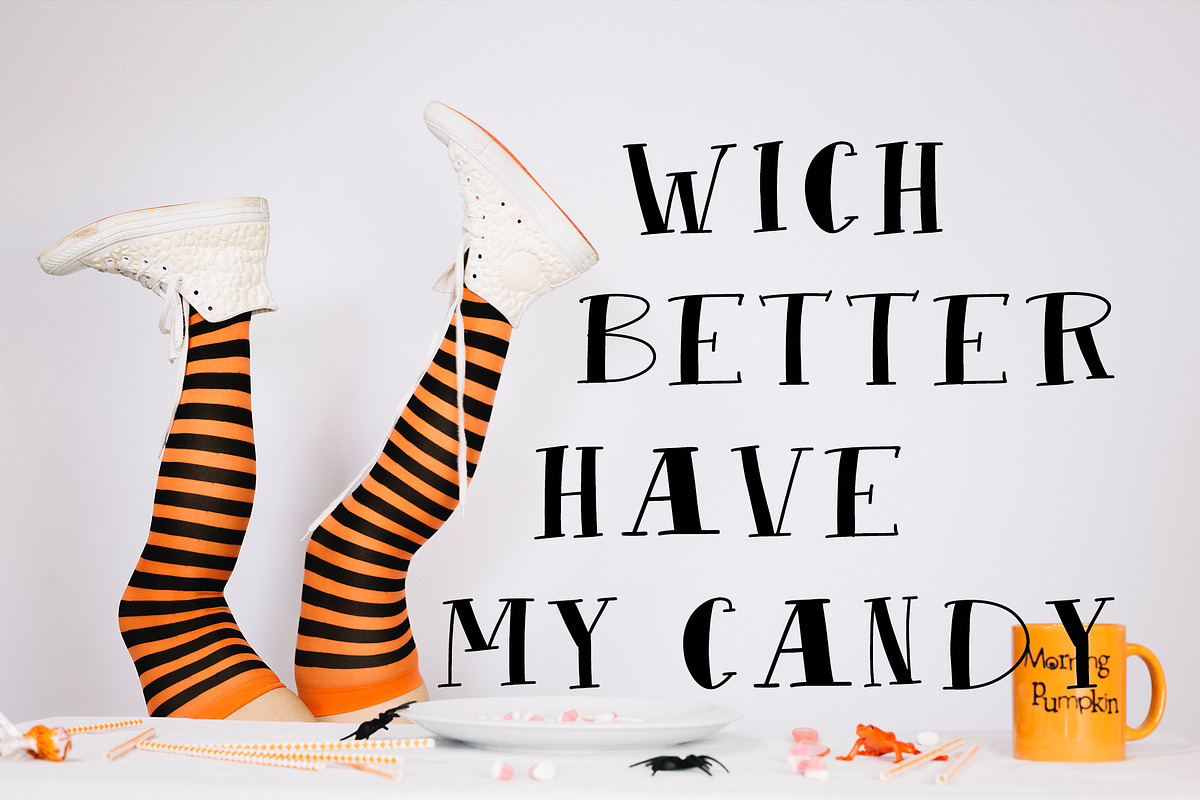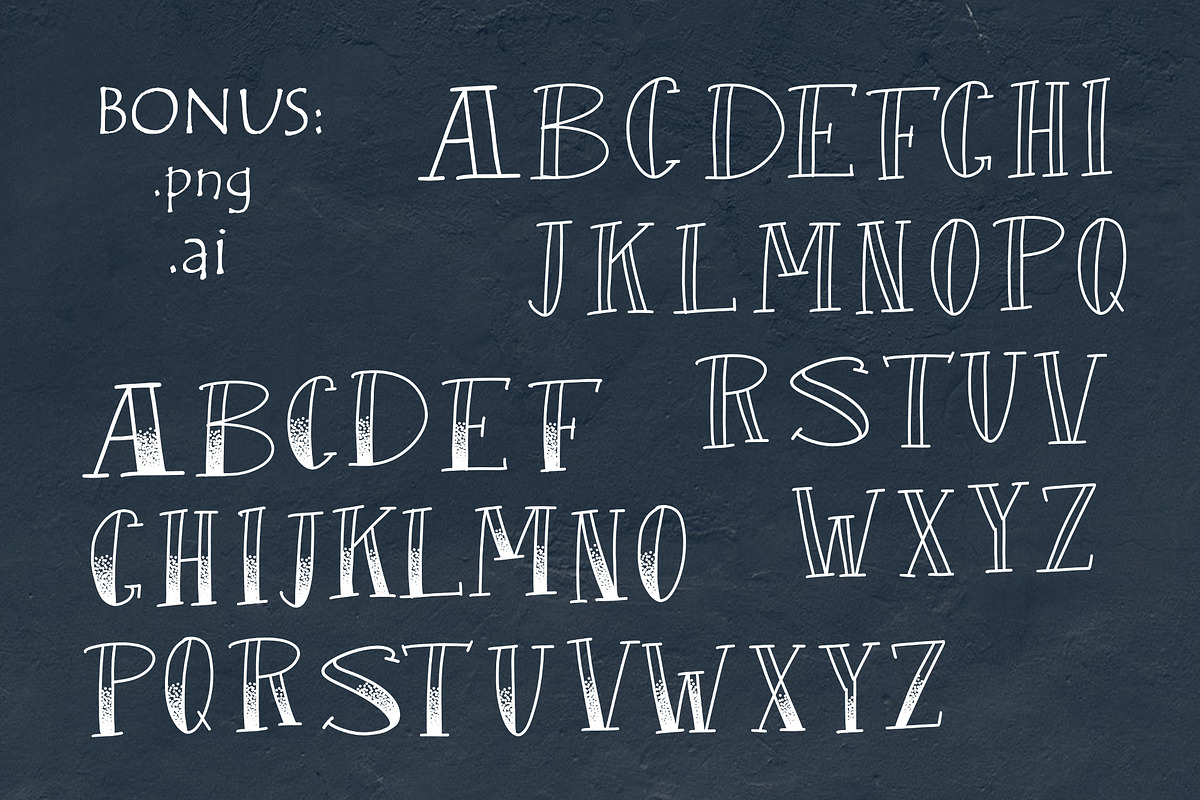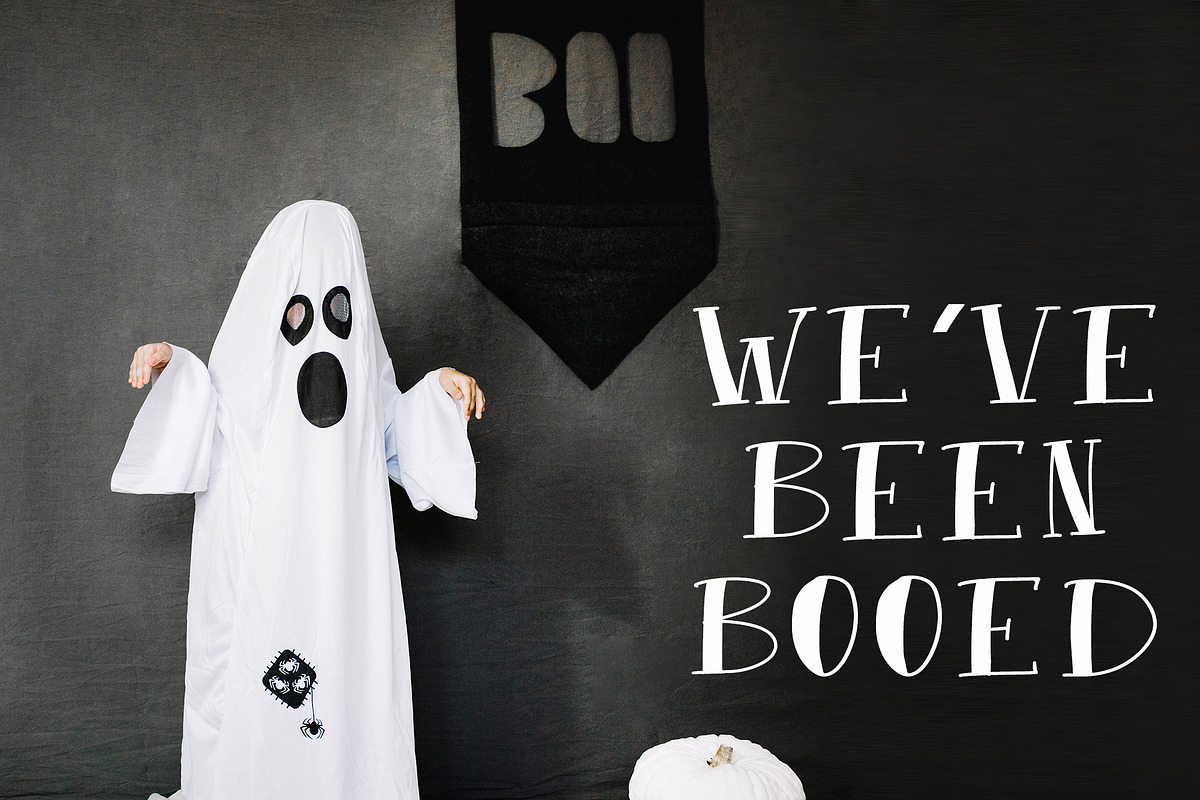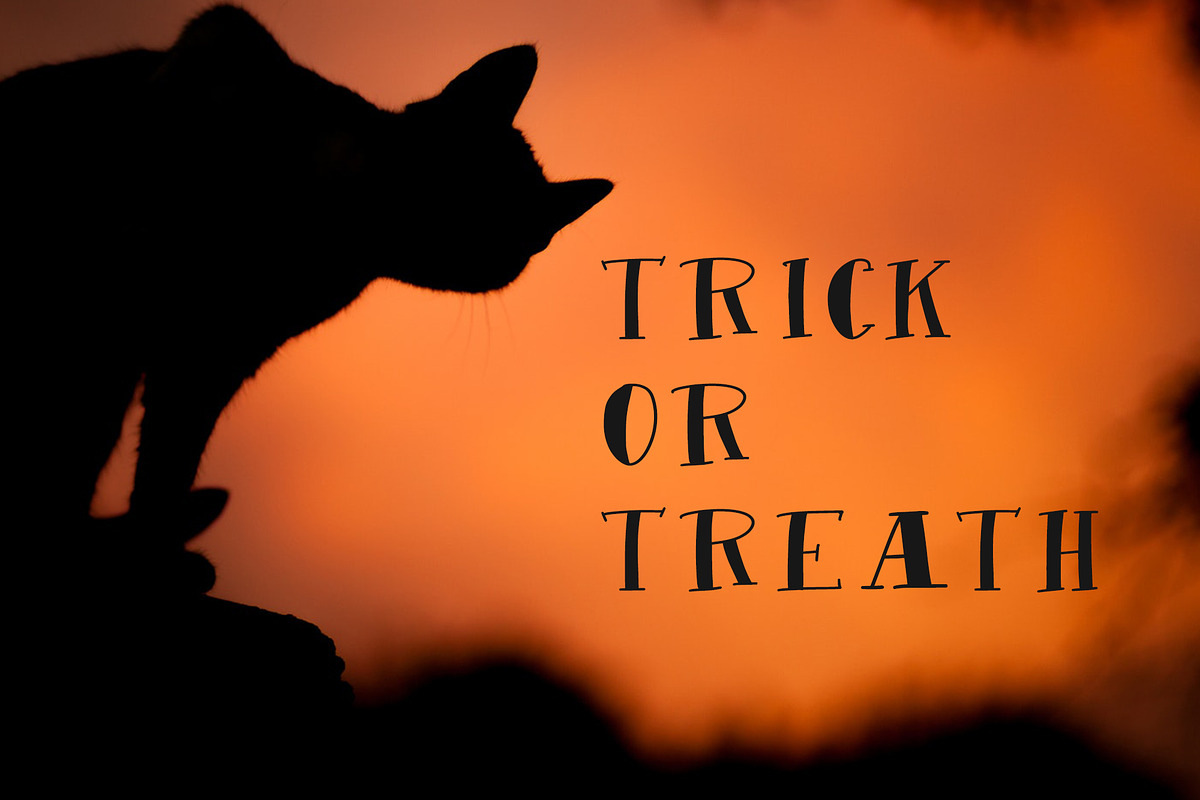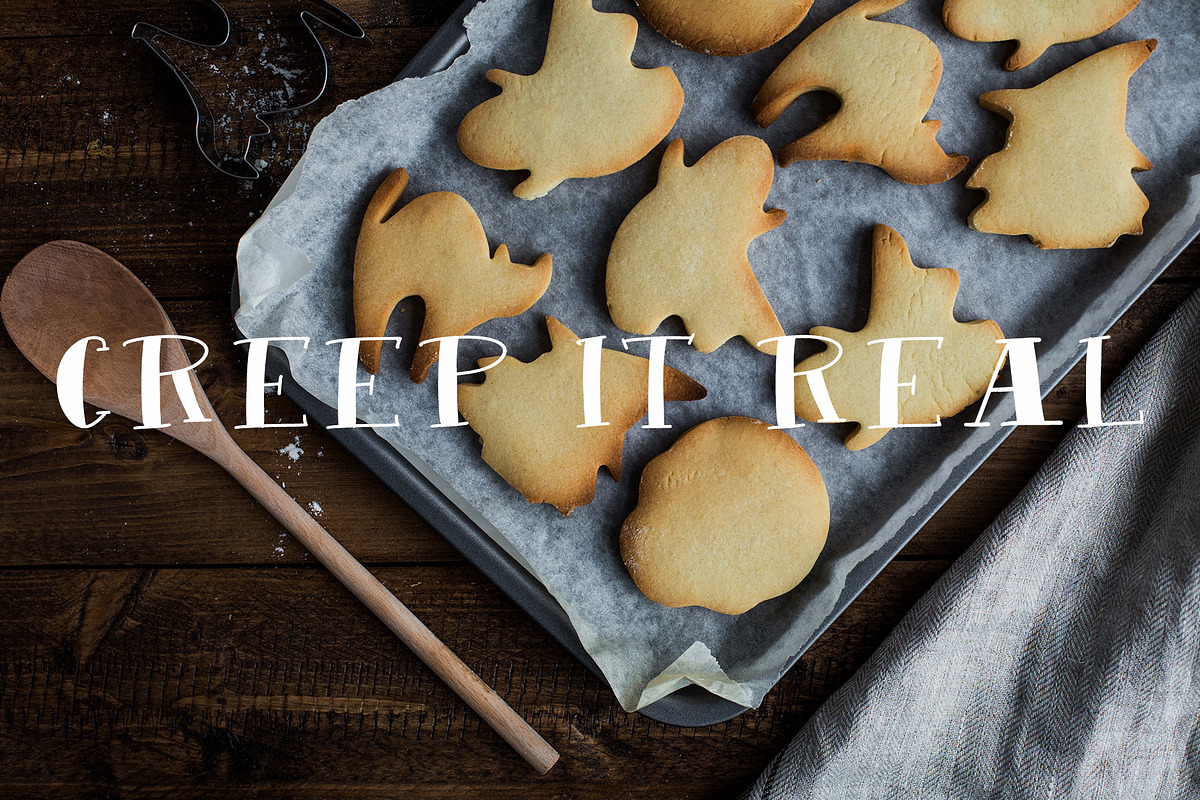
Halloween font
Introducing to you fun hand lettered display font for titles, signs, short phrases, posters and headers.The font contains a set of uppercase filled letters, with numerals and some punctuation.